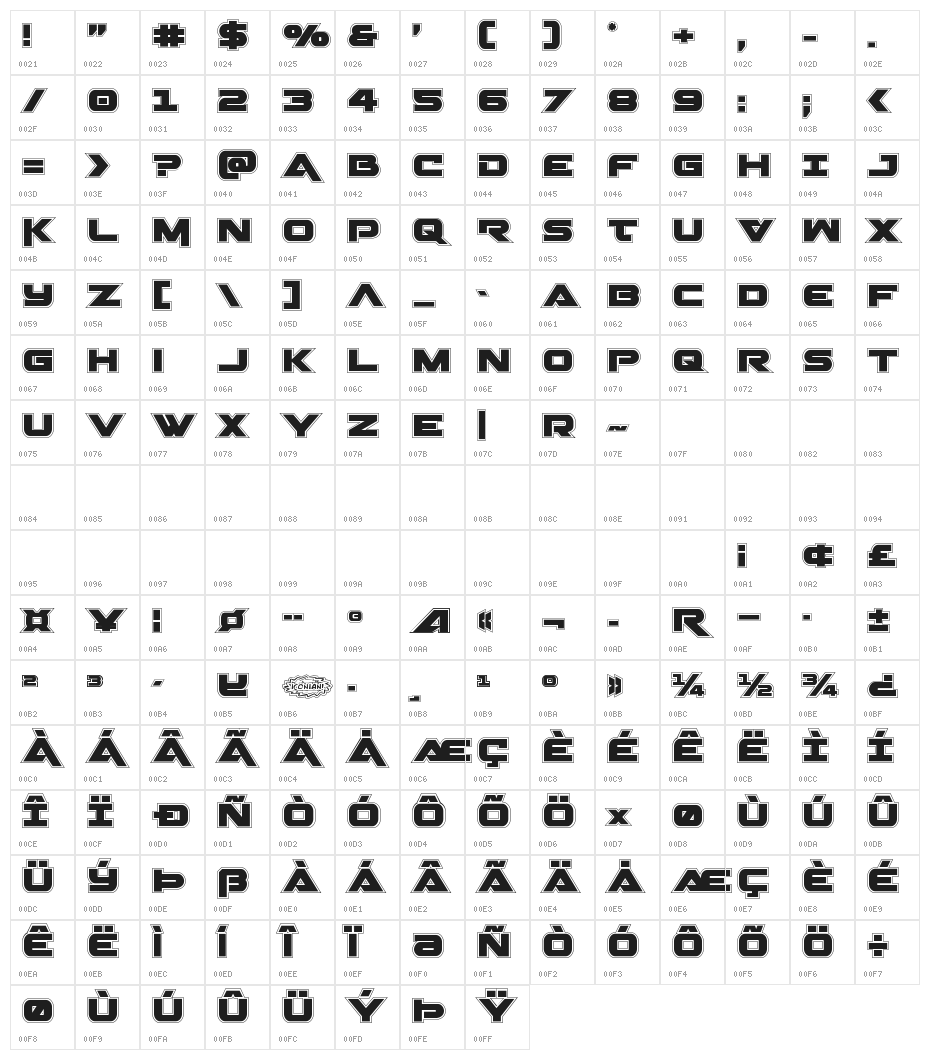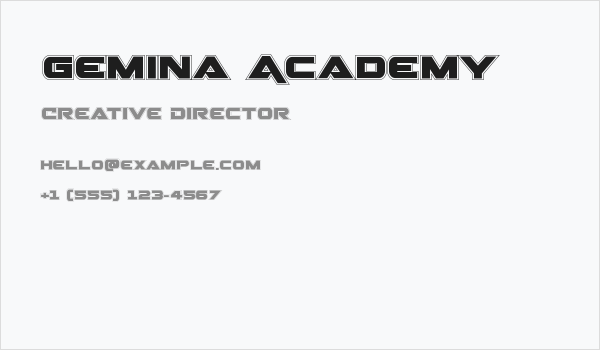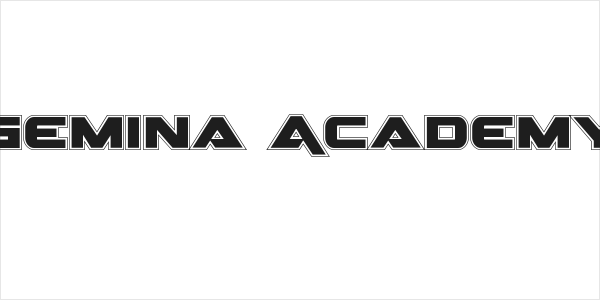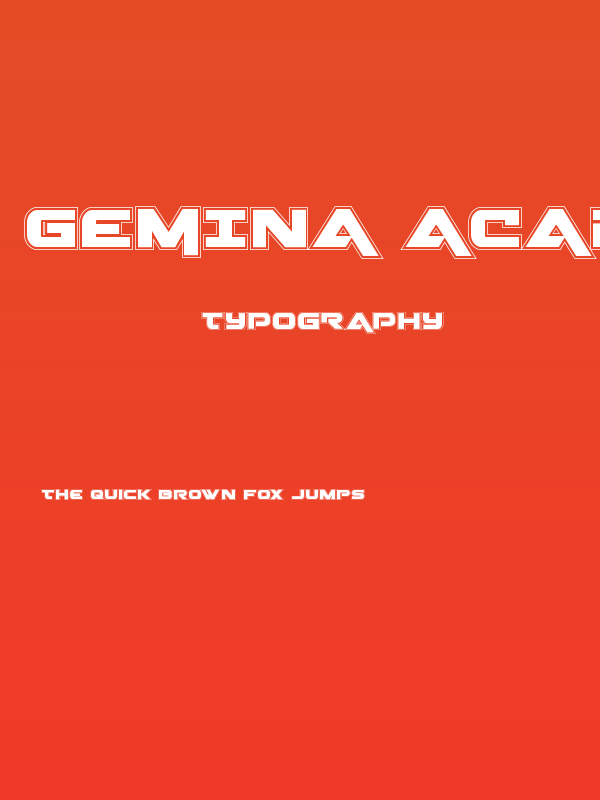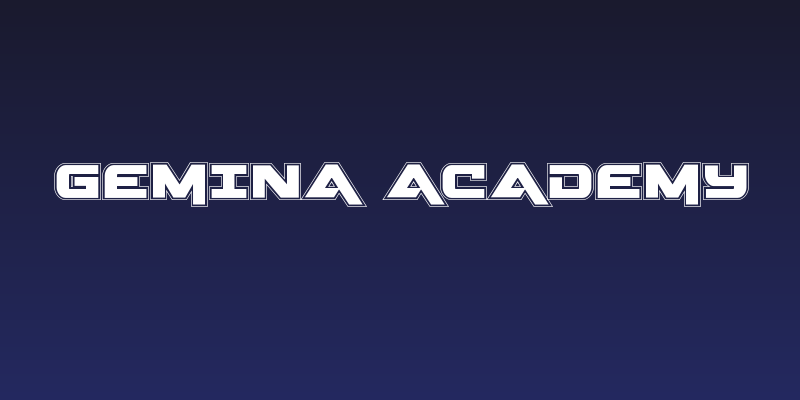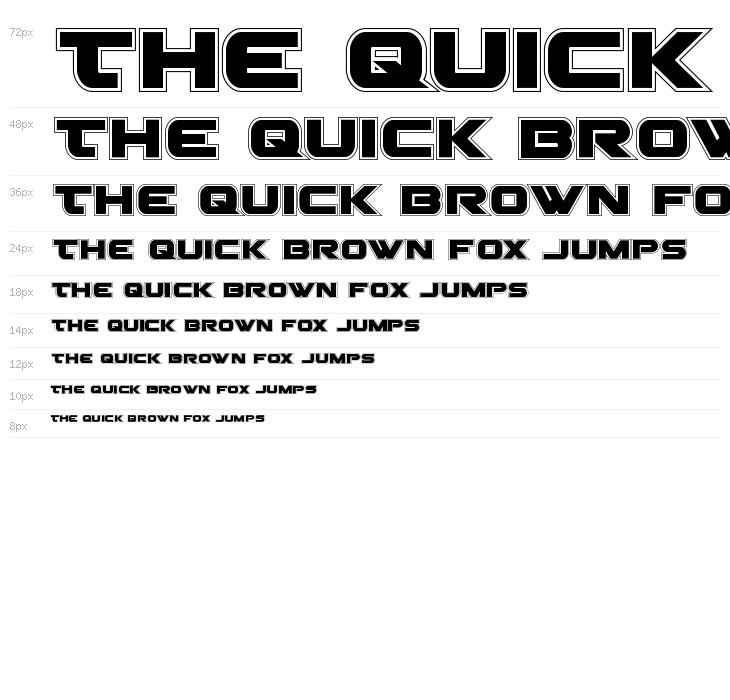
Gemina Academy Font
Gemina Academy Description
This font features a bold and striking design with a futuristic and geometric aesthetic. The characters are outlined, creating a three-dimensional effect that adds depth and visual interest. The uppercase letters are uniform in height and width, giving a sense of balance and symmetry. The numbers and special characters maintain the same bold style, ensuring consistency across all elements. This font's unique style makes it ideal for projects that require a modern and dynamic look.
| Overall Style | Futuristic, Modern |
| Proposed Projects | Ideal for sci-fi themed designs, video game titles, posters, and branding that requires a modern edge. |